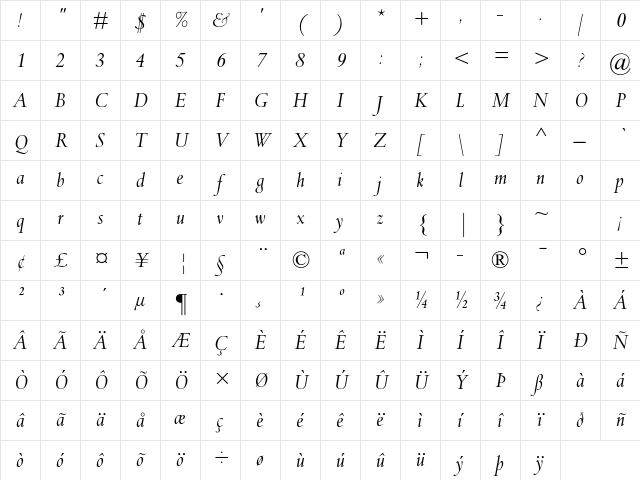
Spectrum MT Std Italic
Designer: Jan van Krimpen
Design Context for Spectrum MT Std
Spectrum MT Std is a composed and adaptable typeface that performs quietly and consistently across a wide range of design contexts. The slanted form adds forward momentum and visual energy.